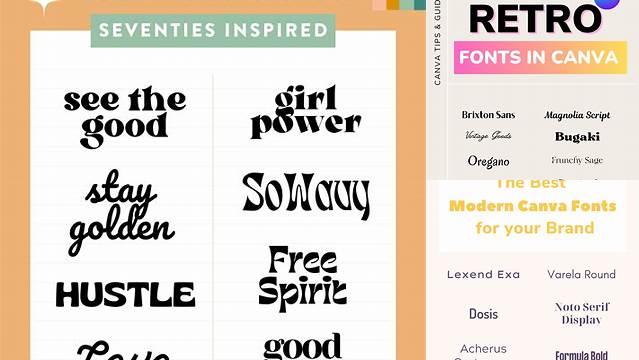
Canva's Coolest Modern Retro Fonts Guide
Hey guys! Ever felt a surge of nostalgia while scrolling through designs? That's the power of modern retro fonts, baby! They're like a time machine for your designs, blending the cool vibes of the past with a fresh, contemporary twist. And guess what? Canva's got a treasure trove of these gems. In this guide, we'll dive deep into the world of modern retro fonts Canva, exploring their unique characteristics, how to spot them, and, most importantly, how to use them to make your designs pop. So, buckle up, because we're about to embark on a stylish journey through the best modern retro fonts Canva has to offer! Get ready to unleash your inner designer with these vintage-inspired treasures.
1. Understanding the Allure of Modern Retro Fonts in Canva
Alright, let's get down to brass tacks. Why are modern retro fonts Canva so darn appealing? Well, they tap into a deep-seated love for the past, offering a comforting familiarity while keeping things fresh and exciting. They're the perfect blend of vintage charm and modern usability. Think about it: you want to create a design that grabs attention, evokes a specific feeling, and maybe even tells a story. Modern retro fonts Canva let you do all that and more. These fonts are like the vintage clothing in your closet, they’re a classic! They add personality, character, and a touch of nostalgia to any project. The best part is, that they do not only work with graphic design, but they can also be utilized for business and everyday activities.
When using modern retro fonts Canva you may notice that it sets a specific tone and establishes a unique identity. These fonts are able to instantly transport viewers to different eras, from the groovy 1970s to the sleek 1980s, all while staying current. Whether you're designing a logo, a poster, a social media post, or anything in between, these fonts can make your work memorable and stand out from the crowd. Modern retro fonts Canva are a fantastic way to do this, because their diversity provides you with the tools to have the right design. The visual effect makes viewers feel as though they are looking at something that is special. They also make the design more friendly. So, get to use these fonts and don't be afraid to experiment with styles to find the perfect fit for your design! The whole idea of using these fonts is to have fun and get creative, so enjoy the process and let your imagination take flight. Use your creativity to combine these fonts with the right colors and layouts to create compelling designs.
The Timeless Appeal of Vintage Aesthetics in Design
Vintage aesthetics are definitely an ongoing trend. The trend is popular because of its sense of nostalgia. Designers love that it can evoke emotions and memories. Retro designs give a warm familiarity. Modern retro fonts Canva is at the core of the design to connect with the audience. The use of retro fonts can make your designs timeless. Using these can communicate a sense of history and craftsmanship. It makes the design more approachable, like you are talking to a friend. The retro design can be used across different industries. When using retro fonts, it enhances the brand's image. The use of retro design provides a distinctive feel. It will make you stand out from the modern design. Overall, the use of vintage aesthetics can give you the design that the audience will be attracted to. It can set a friendly mood when designing.
How Modern Retro Fonts Enhance Brand Identity and Messaging
Modern retro fonts Canva goes beyond design, it also helps to establish and reinforce brand identity. They add personality and tell the brand's story. When you use these fonts, you should pick the perfect font that embodies what your brand is. When you are consistent with the font, you will establish trust with your audience. The fonts are not just the type of font you use, but they are the identity. When used properly, they help in recognition. The fonts can enhance messaging. Using the correct fonts will help you in communicating the message. It's like using a megaphone. So, when designing, you need to make sure that the font that you chose reflects your brand's personality, and the message that you want to send to the audience. Modern retro fonts Canva is your first step in a better branding.
2. Identifying the Key Characteristics of Modern Retro Fonts in Canva
Alright, let's get to the fun part: spotting these retro beauties! Modern retro fonts Canva have a few tell-tale signs. First, you'll often see bold, clean lines inspired by the 70s and 80s. These fonts frequently incorporate geometric shapes, giving them a distinctly modern look with a retro twist. They also bring in some classic font styles like serifs, to give a touch of vintage charm. Now, what is a serif font? A serif font is a type of font that has a small stroke on the end of each letter. The serif style gives a touch of tradition and elegance to the design. They give a sense of credibility and sophistication. On the other hand, sans-serif fonts do not have the stroke, giving them a modern look.
These fonts often feature unique letterforms and flourishes. Think of the groovy curves of the 70s, the sharp angles of the 80s, or the playful serifs of the mid-century. Keep an eye out for fonts that blend these features in an unexpected way, creating something both familiar and new. With modern retro fonts Canva, you can even recognize fonts with contrasting characteristics. Some examples are a combination of thick and thin strokes, or the combination of rounded and angular letterforms. These contrasts add visual interest and energy to the design. You'll also find fonts that are a little bit quirky, with unusual letter shapes or unexpected details. These fonts bring in the fun and make the design more inviting.
The Evolution of Retro Typography: From Past Eras to Modern Adaptations
Retro typography has evolved over time, taking inspiration from different eras. The early years show the use of decorative fonts. These fonts were widely used in the early years of the 20th century. As time evolved, the trends also changed and new styles came in. The mid-century had a new aesthetic that focused on simple designs. These fonts are still in use today. By the 1970s, groovy fonts were becoming popular. The 1980s had a digital age coming in. The evolution of retro typography continues today. It is constantly being reinvented with the use of new technology. The use of modern retro fonts Canva will help you keep up with the trends.
Common Design Elements Found in Modern Retro Font Styles
Modern retro fonts Canva incorporates several design elements. Geometric shapes are always an advantage. The use of circles, squares, and triangles provides a clean look. This creates a sense of balance and visual order. The use of bold lines provides a sense of confidence and gives a powerful effect. The use of thick and thin strokes is an important factor. These strokes add contrast and visual interest. Playful serifs also add character. The serifs are the strokes at the end of the letters that give a classic look. The use of bright and bold colors can add to the aesthetic of the font. These colors make the design eye-catching and fun. The designs also have vintage illustrations and patterns that can enhance the aesthetic of the font.
3. Top Modern Retro Font Styles Available in Canva
Okay, let's get down to the good stuff: the fonts themselves! Canva is filled with amazing modern retro fonts Canva that will make your designs sing. You'll find fonts inspired by everything from the groovy 70s to the neon-soaked 80s, with a sprinkle of mid-century charm. First, you have to keep in mind that these fonts come in different styles. You have bold and playful fonts for headlines, elegant fonts for body text, and script fonts for a touch of sophistication.
One of the best options is the bold and playful fonts that are perfect for grabbing attention. You can use them for posters, social media posts, and any design where you want to make a statement. The elegant fonts are your go-to for any design that needs a touch of sophistication. They’re perfect for invitations, business cards, or any design where you want to create a polished look. You also have script fonts that can add elegance. They can be used for logos, signatures, or any design that needs a personal touch. Each style has its own unique characteristics, so try out different styles to find which one suits your design needs. With modern retro fonts Canva, you have the chance to experiment and create.
Detailed Overview of Popular Retro Font Families in Canva
Modern retro fonts Canva gives you access to the most popular font families. The font families include everything from classic serifs to the groovy scripts. These fonts will give you the style you want. One of the most sought after font families is the bold and playful fonts. They are eye-catching and fun for headlines and logos. The script fonts bring in elegance and are perfect for a sophisticated look. Also, the serif fonts will give you the vintage charm that you want.